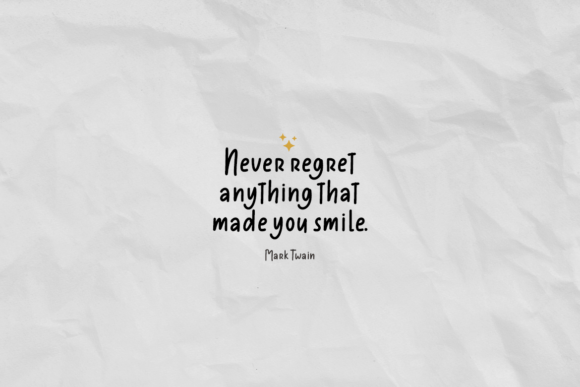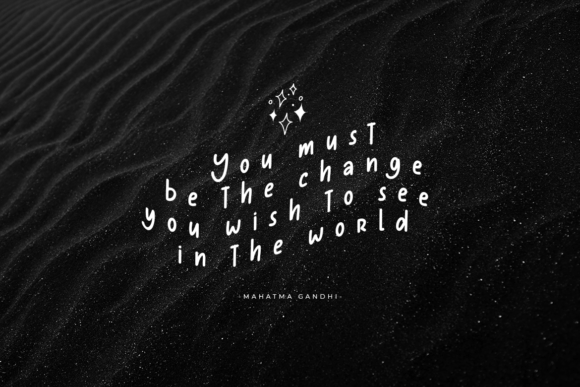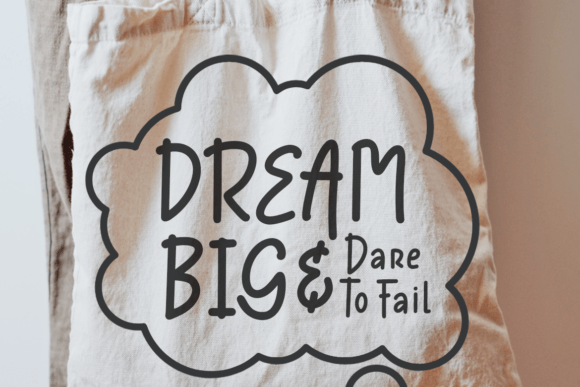
Introduction to Giant Oranges Font
Giant Oranges is a versatile, stylish, and playful handwritten script font, perfect for a wide spectrum of applications such as greeting cards, headlines, and many more.
Add it to any of your creative projects, and it will give them a clean and exquisite feel .
Key Features of Giant Oranges Font
Why Choose Giant Oranges Font?
Giant Oranges Font offers exceptional quality and versatility, making it a valuable addition to your design toolkit. Whether you’re creating for personal projects or commercial use, Giant Oranges Font delivers professional results.